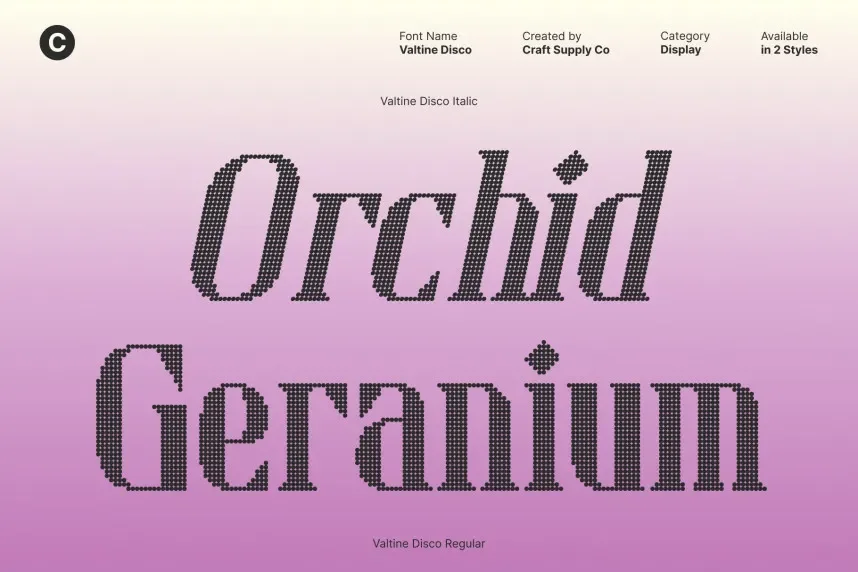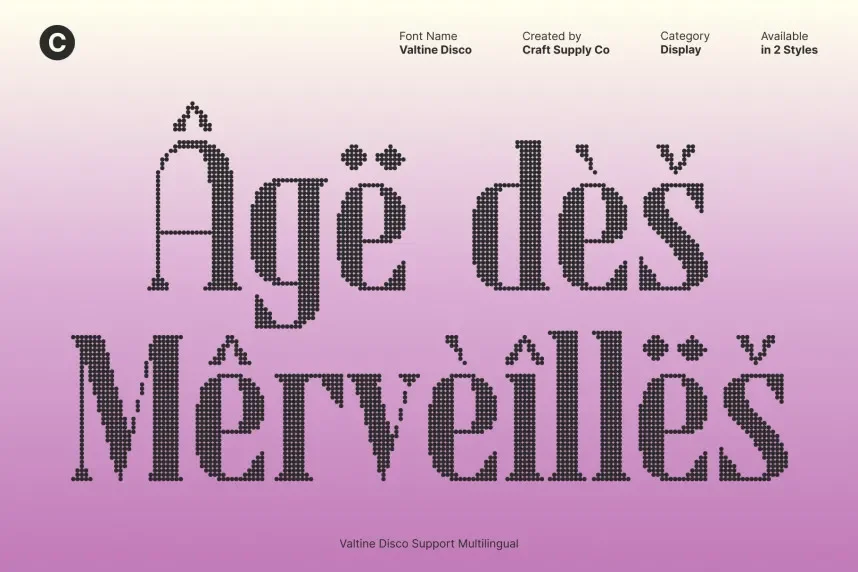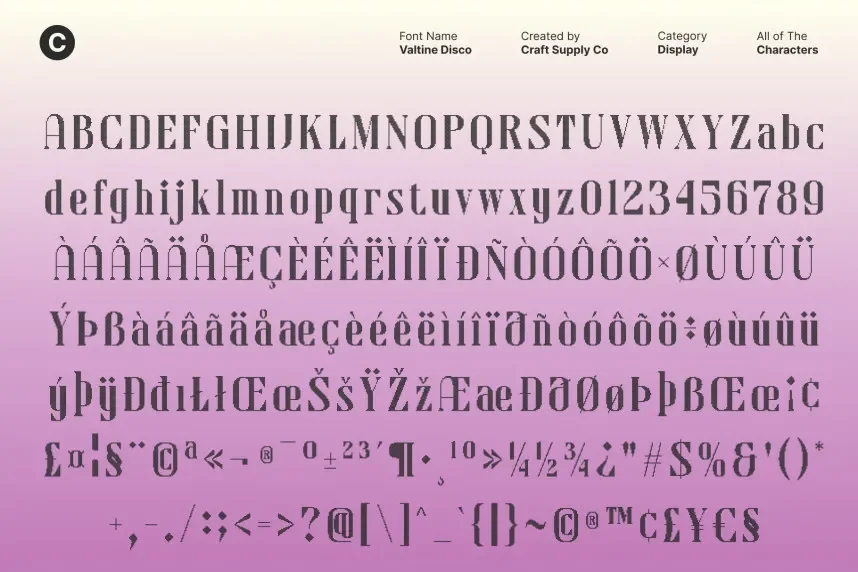
Valtine Disco Font is a display typeface designed for designers who need strong visual rhythm without sacrificing letter clarity. It helps address common branding issues where decorative fonts become unreadable at larger scales or in digital layouts.
This font features rounded letterforms, consistent stroke weight, and smooth curves influenced by retro disco signage. The characters maintain even spacing, which improves legibility in headlines and logo design. Valtine Disco Font performs best in short text blocks where visual emphasis matters more than long reading comfort.